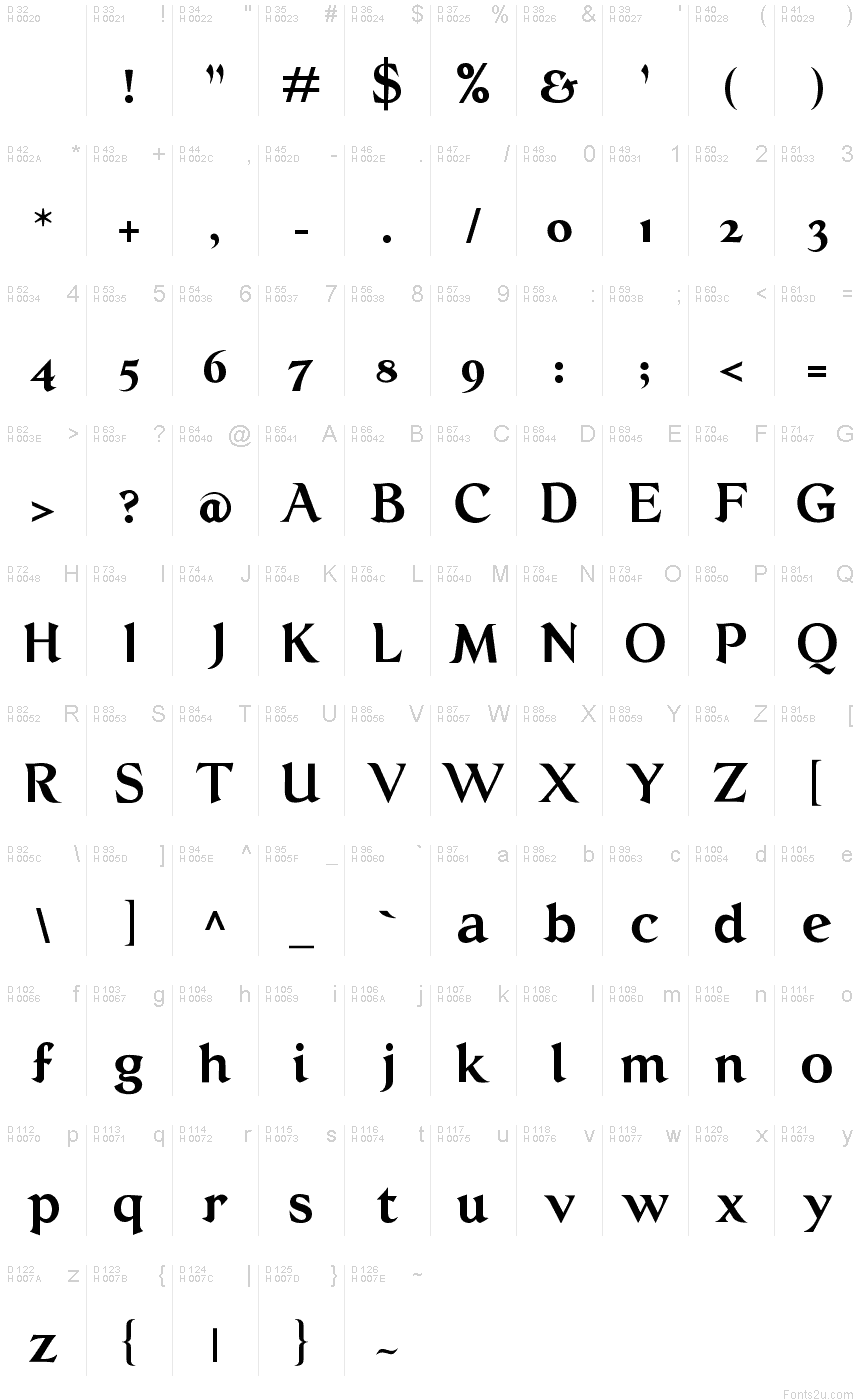
Dilys Bold, designed by Leon Hulst for TypeFaith fonts, is a free high-contrast serif with broad capitals and sharply tapered details. Its deep curves, blade-like serifs, and changing stroke widths give the lettering a theatrical, slightly eccentric silhouette.
Publishing is its strongest setting, especially for dramatic cover lines and feature openers. The same sculpted forms suit fashion packaging, cultural posters, and event programs with an artful or historical slant. The pronounced points and swelling curves let the lettering function as decorative imagery, not merely as neutral text.